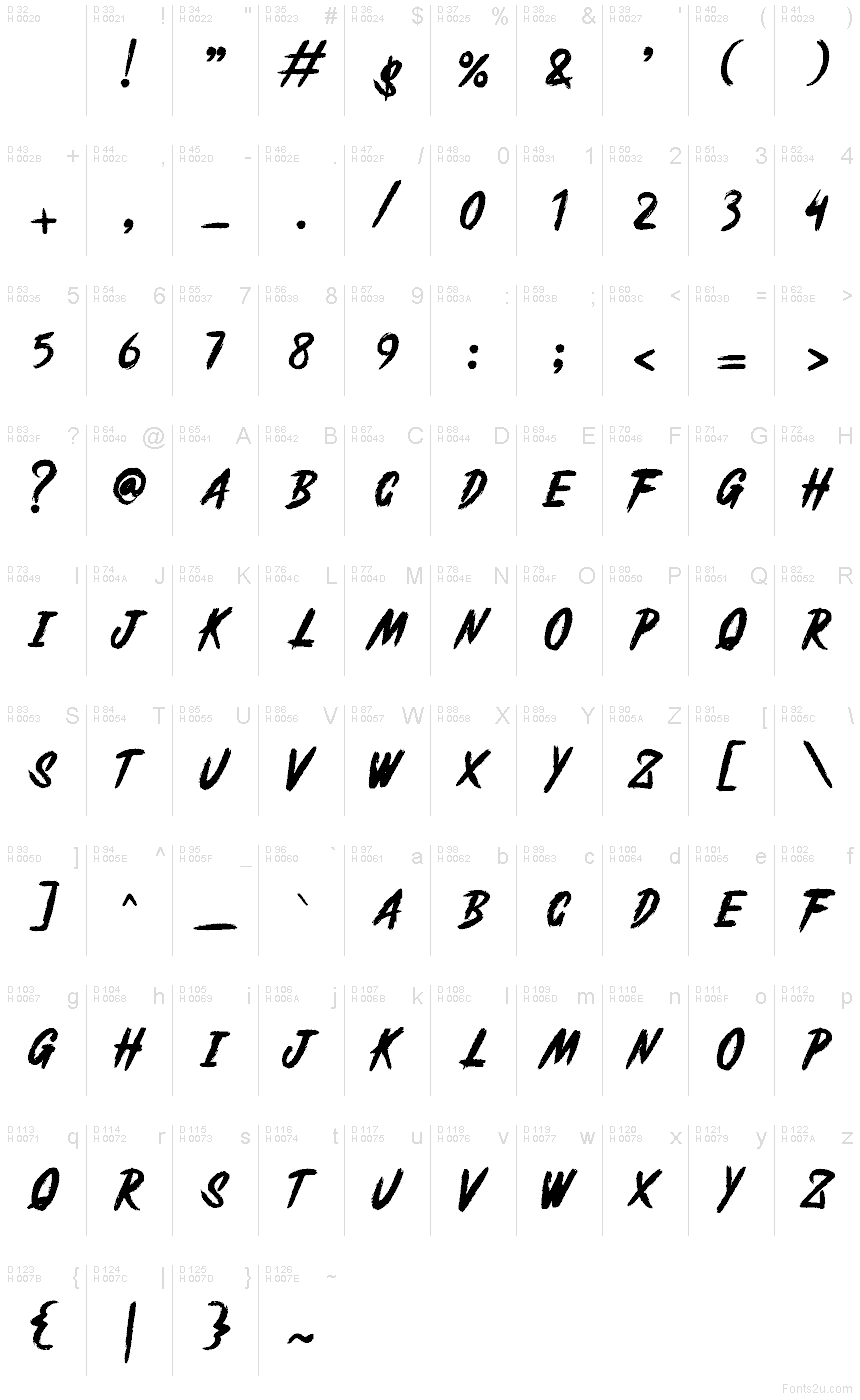
Night Fears font by Dhabee Studio is a free scary display font that lunges off the page with slashed, brushy strokes and a restless forward tilt. Its jagged edges and inky, torn textures feel like they were scraped across a wall, giving headlines a raw, adrenal punch without losing readability at size.
Using Night Fears, you can push atmosphere fast-great for horror posters, haunted house flyers, thriller book covers, game titles, YouTube thumbnails, and Halloween merch. The energetic rhythm helps short words hit hard, while the gritty texture adds instant mood. Pair this free font with a clean sans-serif for body copy, and set it large with a touch of extra tracking for maximum menace.
Night Fears